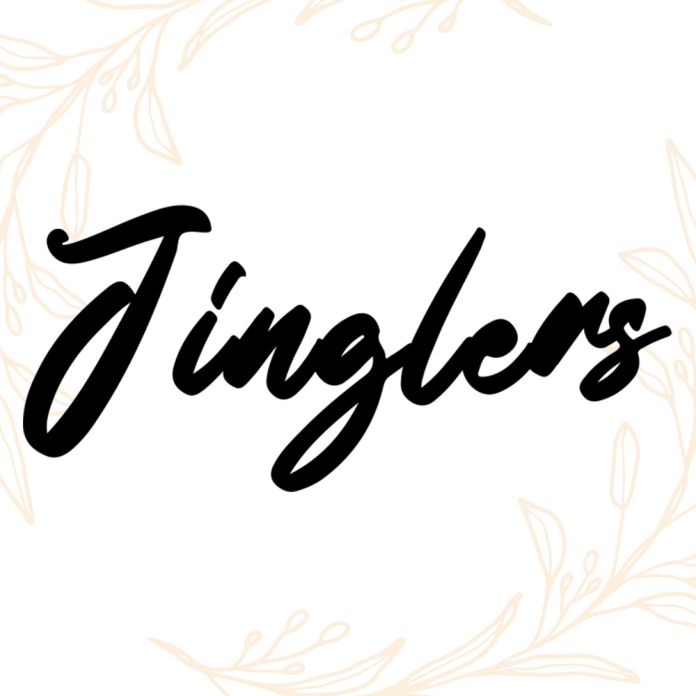
Jinglers is a beautifully modern handwritten font that’s both expressive and refined. With its smooth loops and stylish swashes, this typeface suits branding, logos, packaging, and handwritten quotes where a contemporary script look is desired.